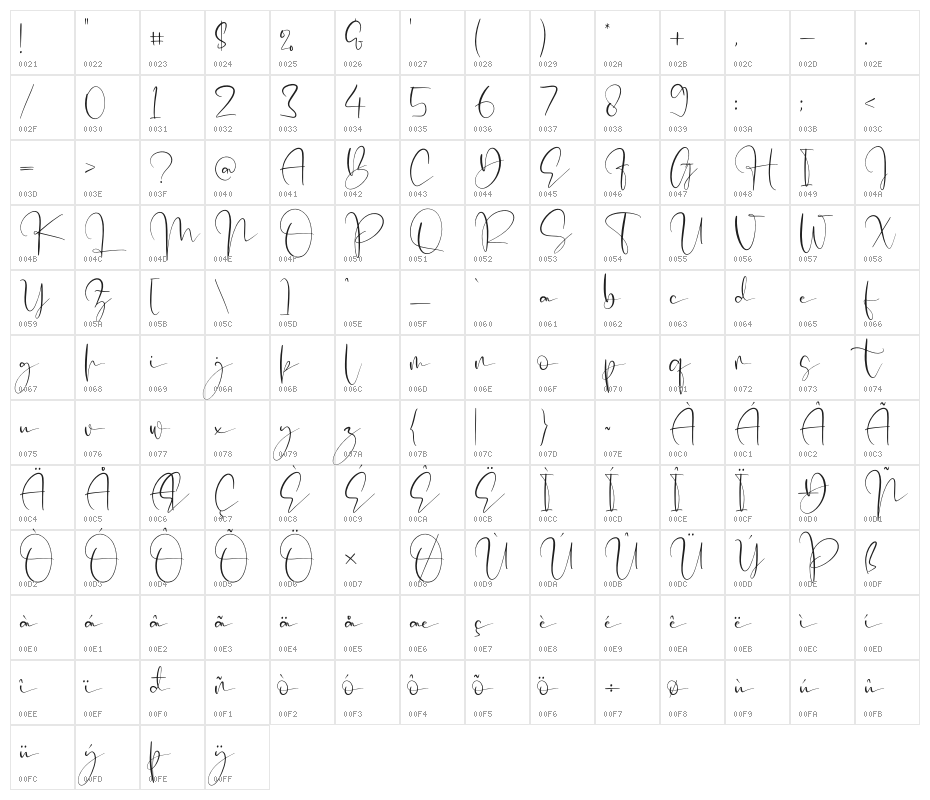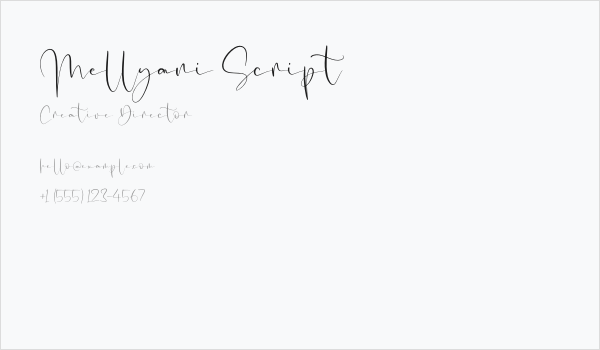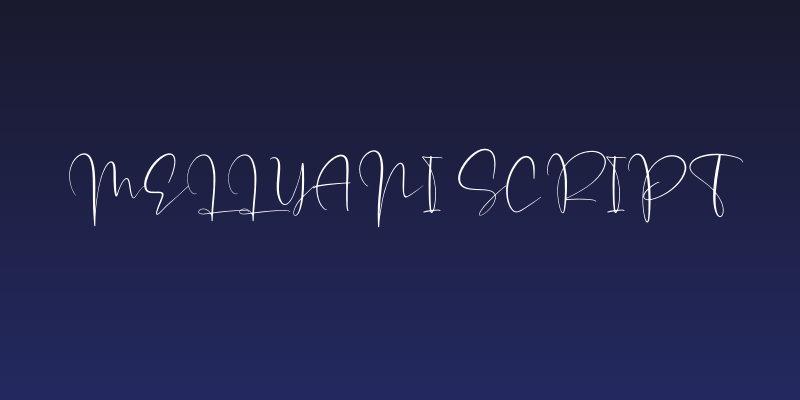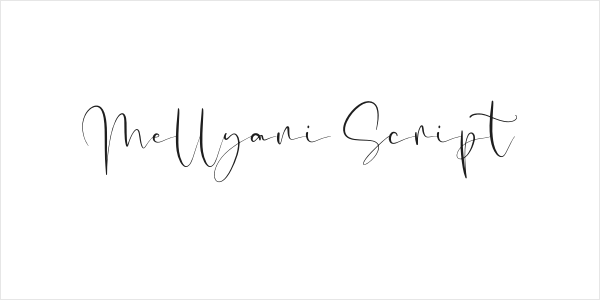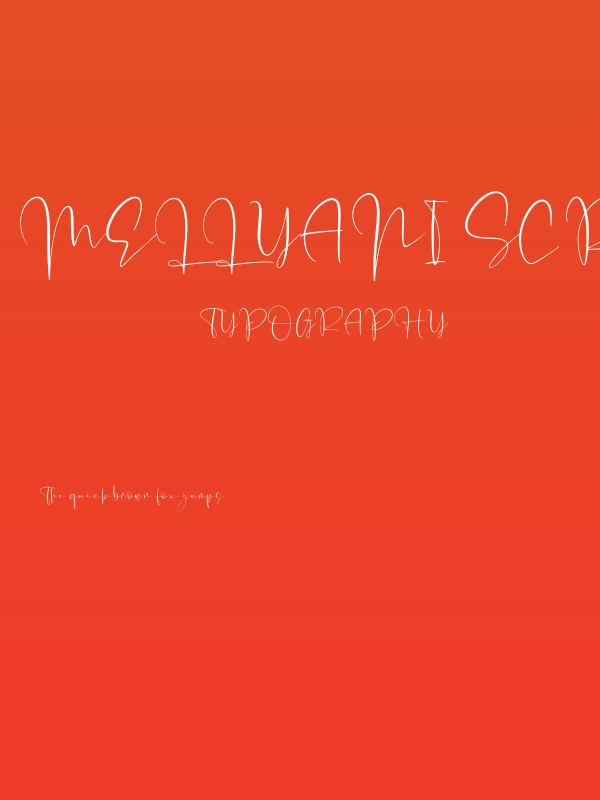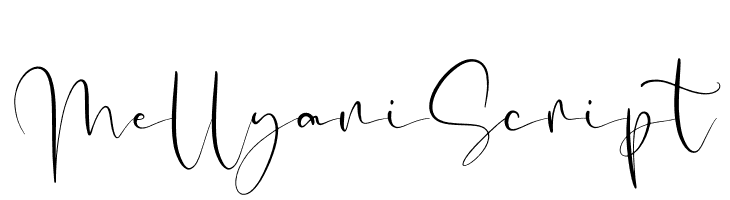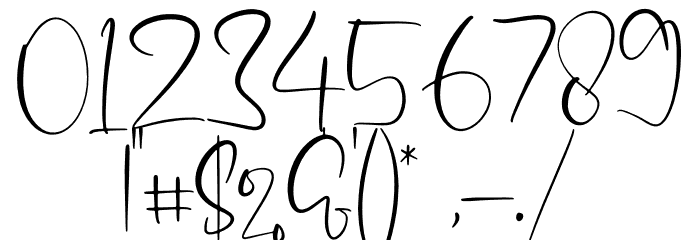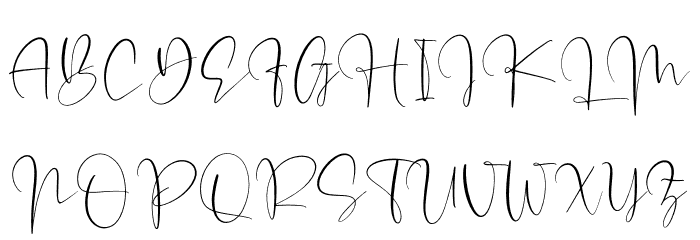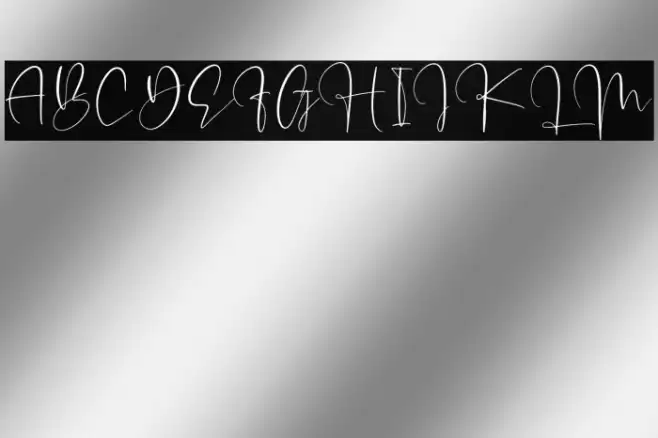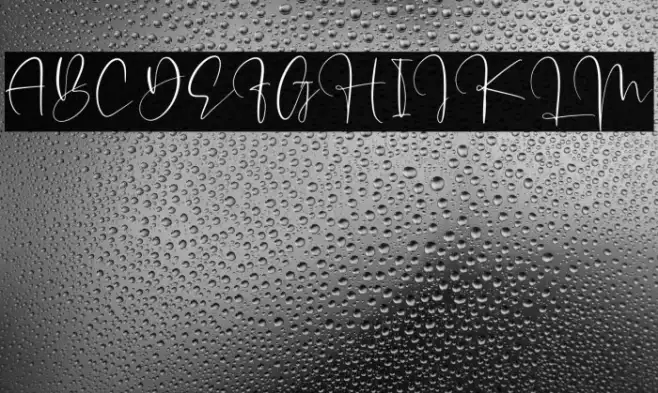
Mellyani Script Font
Mellyani Script Description
A flowing, elegant script font with a handwritten style, featuring thin strokes and smooth curves.
| Proposed Projects | Wedding invitations, greeting cards, personal branding. |